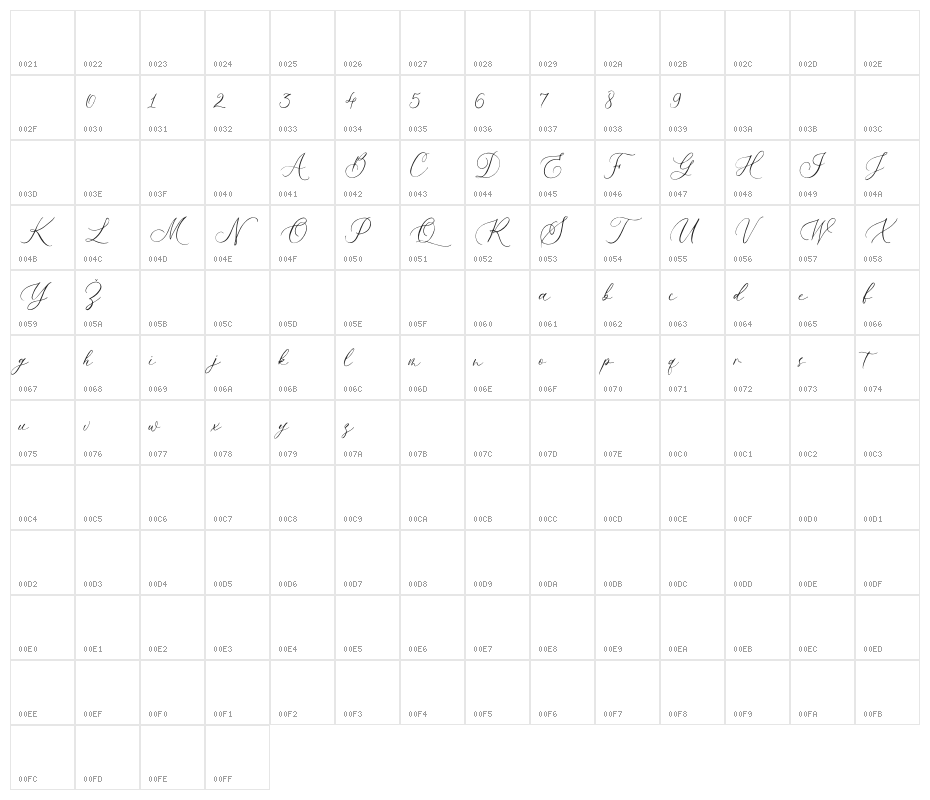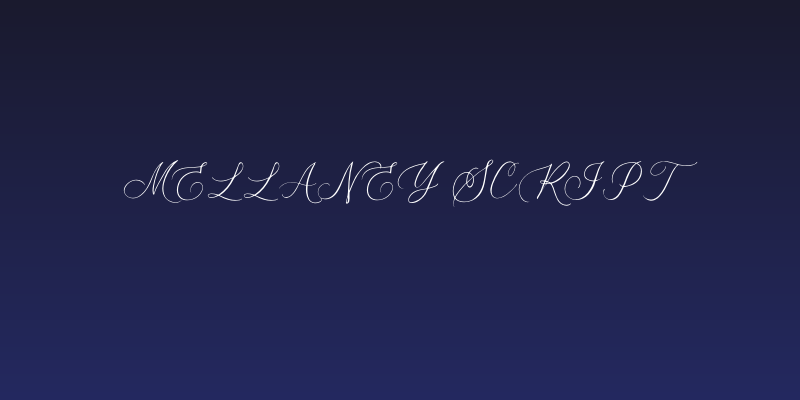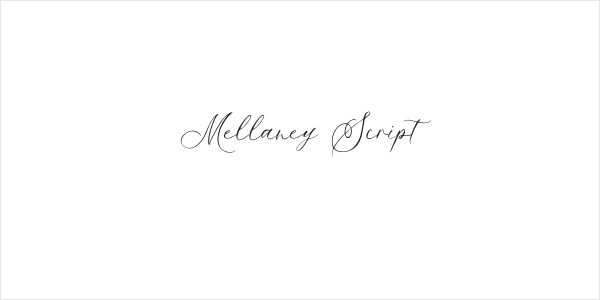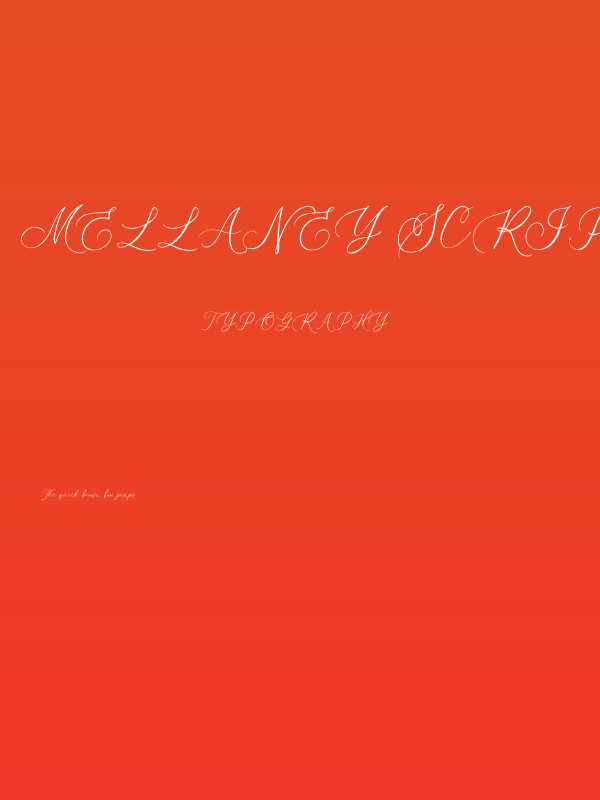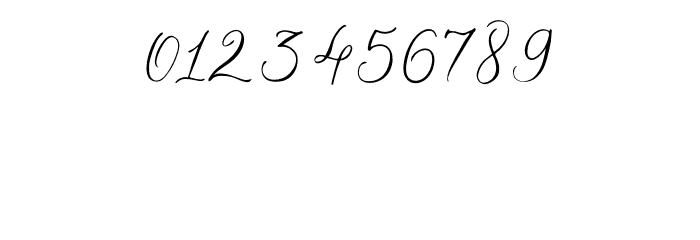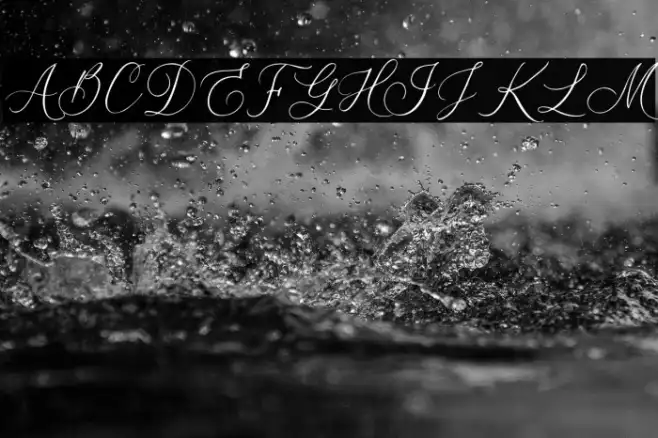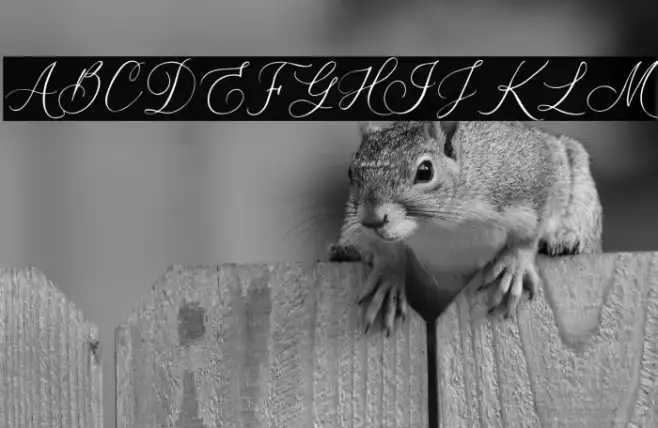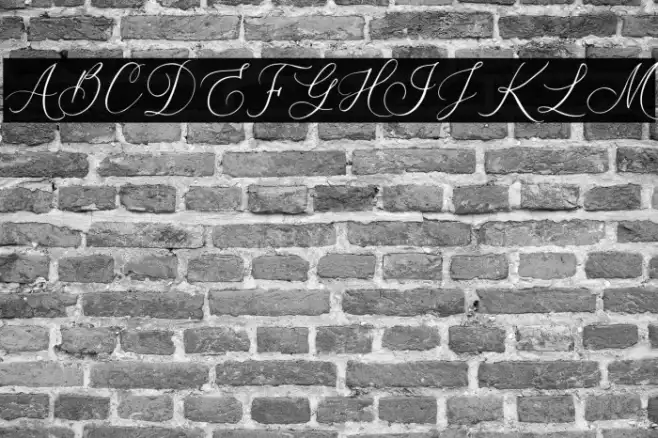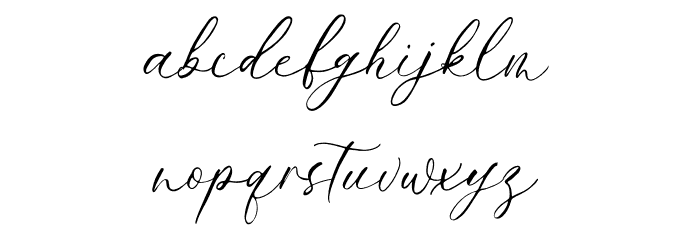
Mellaney Script Font
Mellaney Script Description
This elegant script font features flowing, interconnected letters that mimic the fluidity of cursive handwriting. The characters are delicately crafted with thin strokes and subtle flourishes, giving it a sophisticated and graceful appearance. The uppercase letters are particularly ornate, with sweeping curves and loops that add a touch of drama. The lowercase letters maintain a consistent style, ensuring readability while preserving the font's decorative nature. The numerals are equally stylish, fitting seamlessly with the overall aesthetic. This font is perfect for projects that require a touch of elegance and refinement.
| Use Case | Headlines, Invitations, Branding |
| Proposed Projects | Ideal for wedding invitations, elegant branding, personal stationery, and decorative headings. |